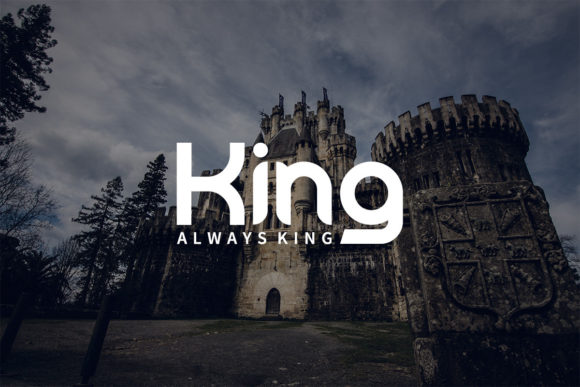
Discover the Power of Alpin Font: Elevate Your Designs with a Cool and Assertive Sans Serif
In the world of typography, fonts play a crucial role in conveying messages, expressing emotions, and creating visual identities. For designers and crafters, finding the right font can make all the difference in transforming a good design into a great one. This is where Alpin Font comes in – a cool and assertive sans serif font that can elevate any creation. In this article, we’ll explore the features, benefits, and uses of Alpin Font, and why it’s a wonderful asset to your font library.
What is Alpin Font?
Alpin Font is a modern sans serif font designed to make a statement. Its clean lines, precise curves, and balanced proportions create a unique and captivating visual identity. The font’s assertive personality makes it perfect for headlines, titles, and any design that requires a strong impact. Whether you’re working on a branding project, a website, or a marketing campaign, Alpin Font is an excellent choice to grab attention and convey confidence.
Key Features of Alpin Font
- Clean and Modern Design: Alpin Font boasts a sleek and contemporary design, making it perfect for modern brands and designs.
- Assertive and Confident: The font’s assertive personality makes it ideal for headlines, titles, and any design that requires a strong impact.
- Versatile and Adaptable: Alpin Font can be used for a wide range of design projects, from digital media to print materials.
- Easy to Read: The font’s clear and legible design ensures that your message is conveyed effectively, even at small font sizes.
Benefits of Using Alpin Font
So, why should you choose Alpin Font for your design projects? Here are some benefits that make it an excellent addition to your font library:
- Enhance Your Brand’s Visual Identity: Alpin Font can help create a strong and memorable visual identity for your brand, setting you apart from competitors.
- Increase Readability: The font’s clear design ensures that your message is conveyed effectively, making it perfect for body text and captions.
- Boost Creativity: With Alpin Font, you can experiment with different design styles, from minimalist to bold and colorful.
- Save Time: The font’s versatility and adaptability save you time and effort in finding the perfect font for your design project.
Uses of Alpin Font
Alpin Font is a versatile font that can be used for a wide range of design projects, including:
- Branding and Logo Design: Create a strong and memorable visual identity for your brand with Alpin Font.
- Web Design: Use Alpin Font to create clean, modern, and responsive websites that engage users.
- Marketing and Advertising: Make a bold statement with Alpin Font in your marketing campaigns, flyers, and brochures.
- Print Materials: Use Alpin Font for business cards, letterheads, and other print materials to create a professional and cohesive visual identity.
In conclusion, Alpin Font is a cool and assertive sans serif font that can elevate any design project. Its clean design, assertive personality, and versatility make it an excellent addition to your font library. Whether you’re a designer, crafter, or entrepreneur, Alpin Font is a wonderful asset to enhance your creations and convey your message effectively. So, what are you waiting for? Discover the power of Alpin Font and take your designs to the next level!